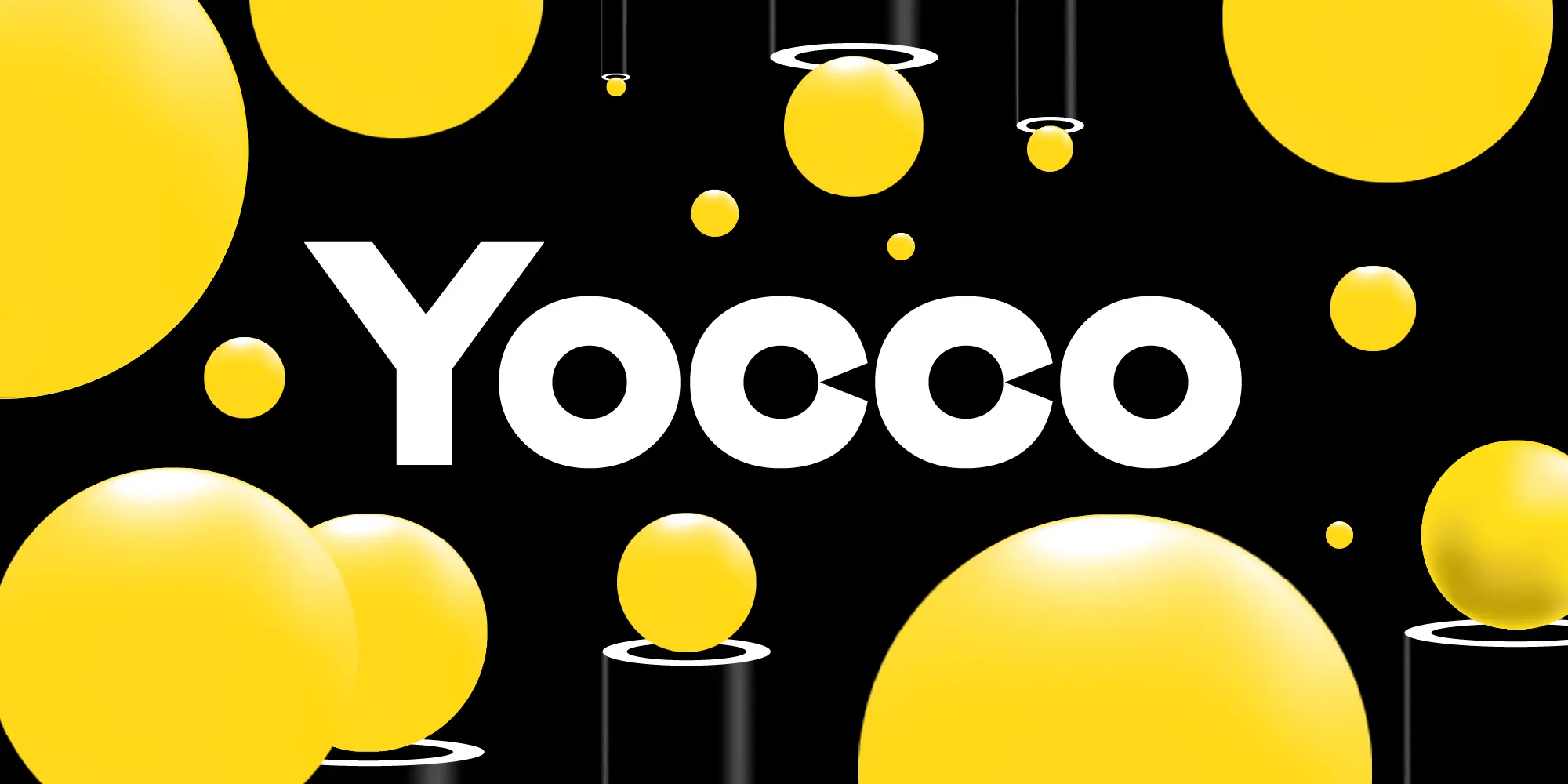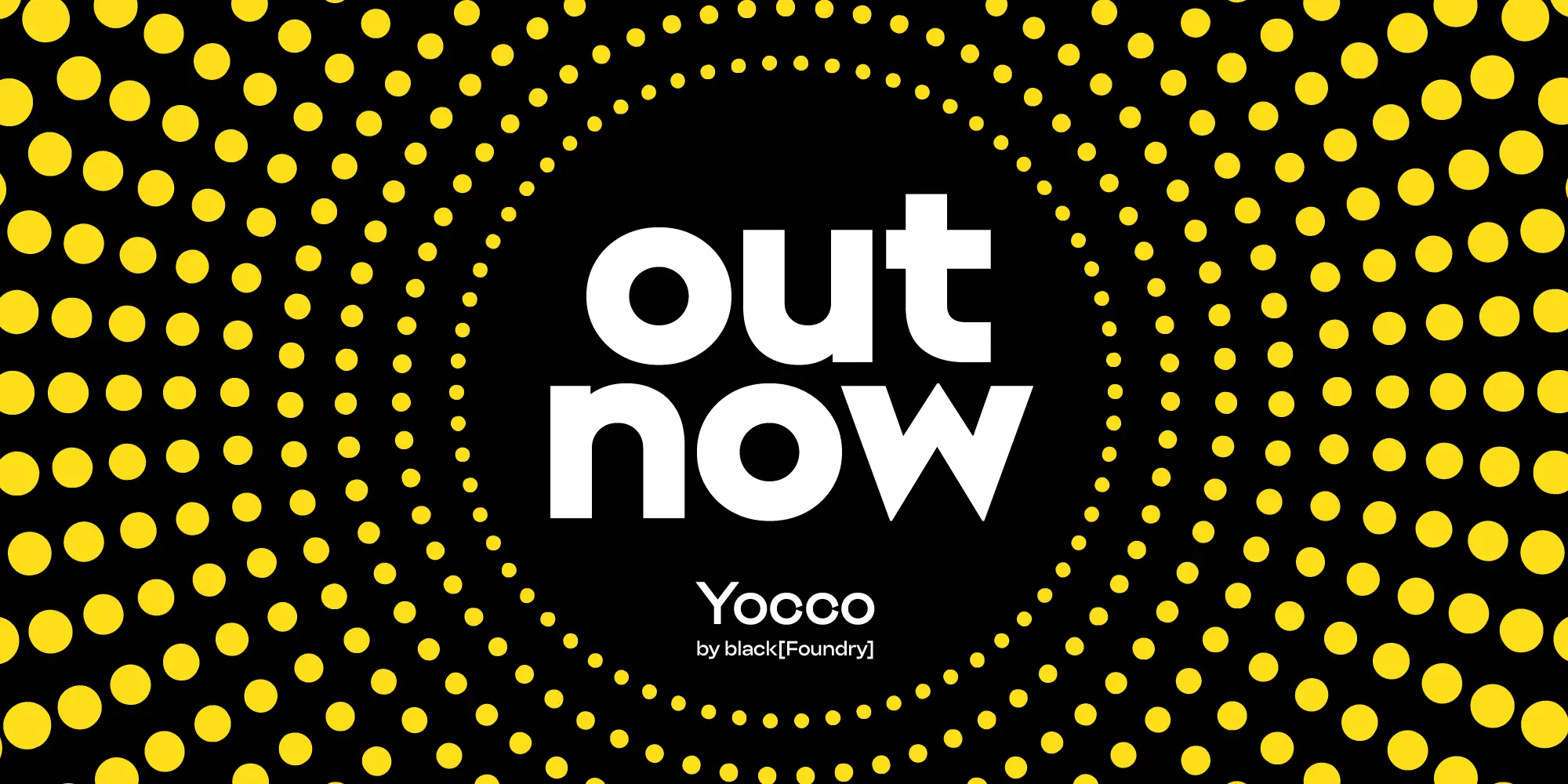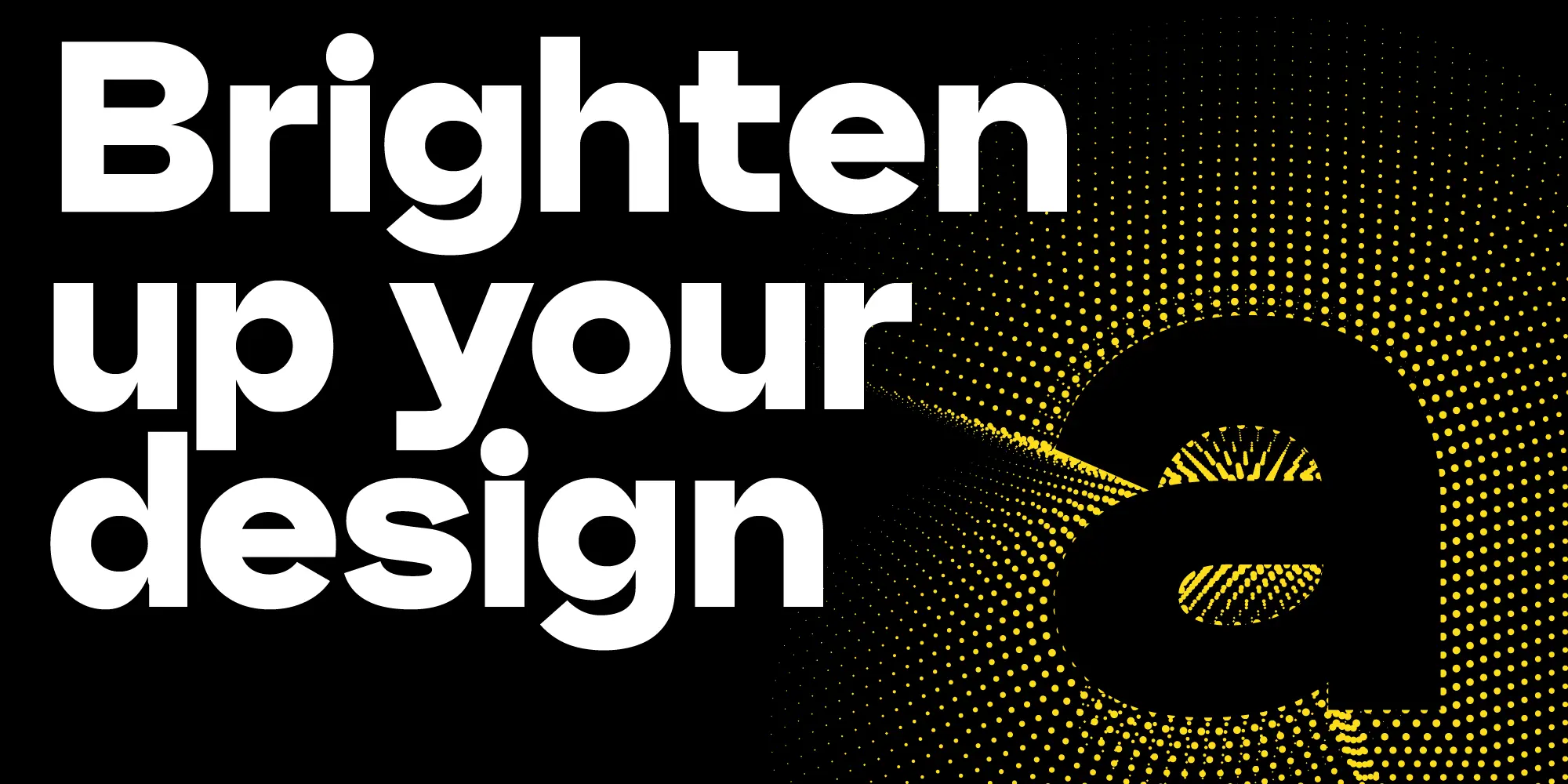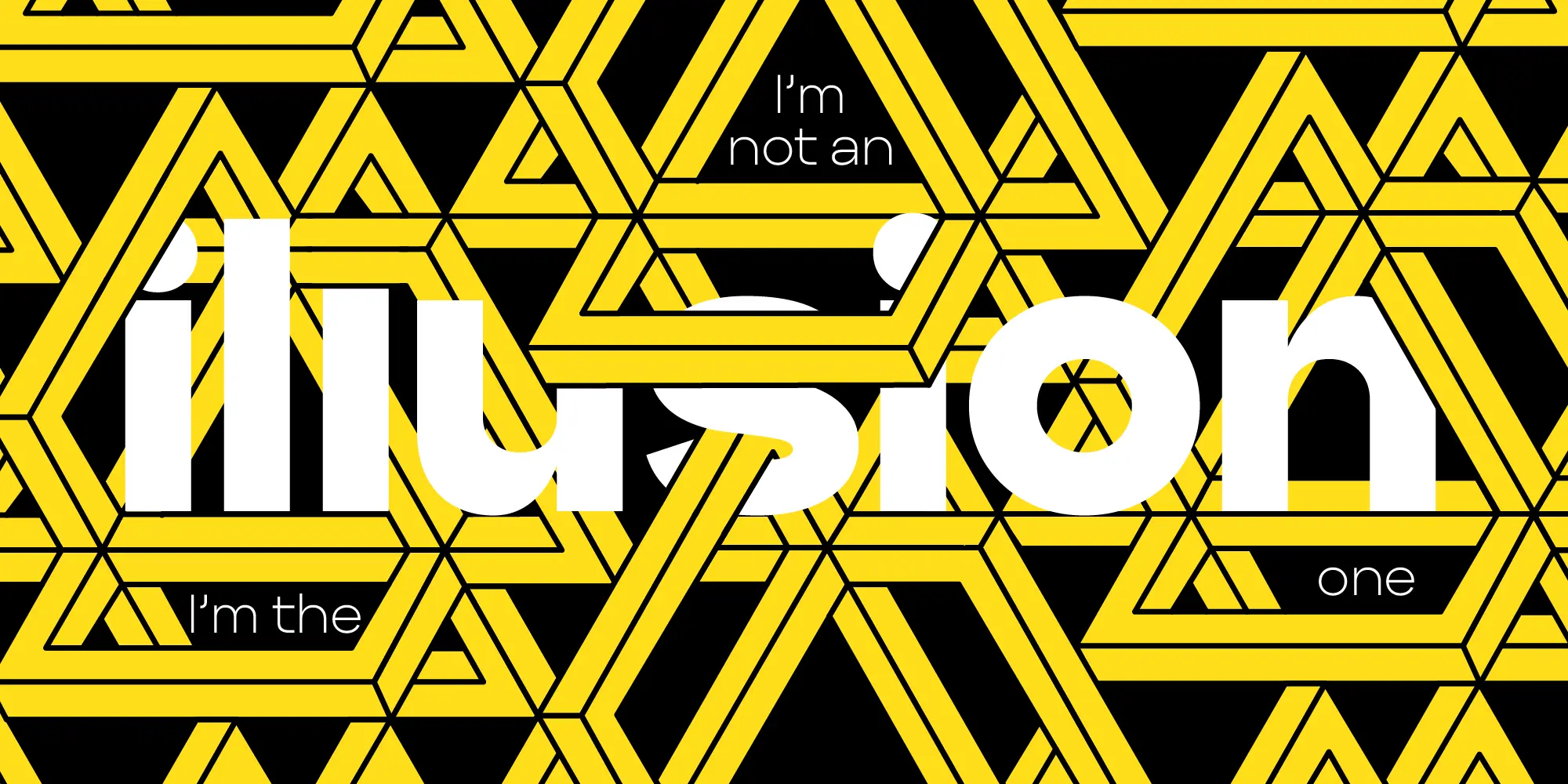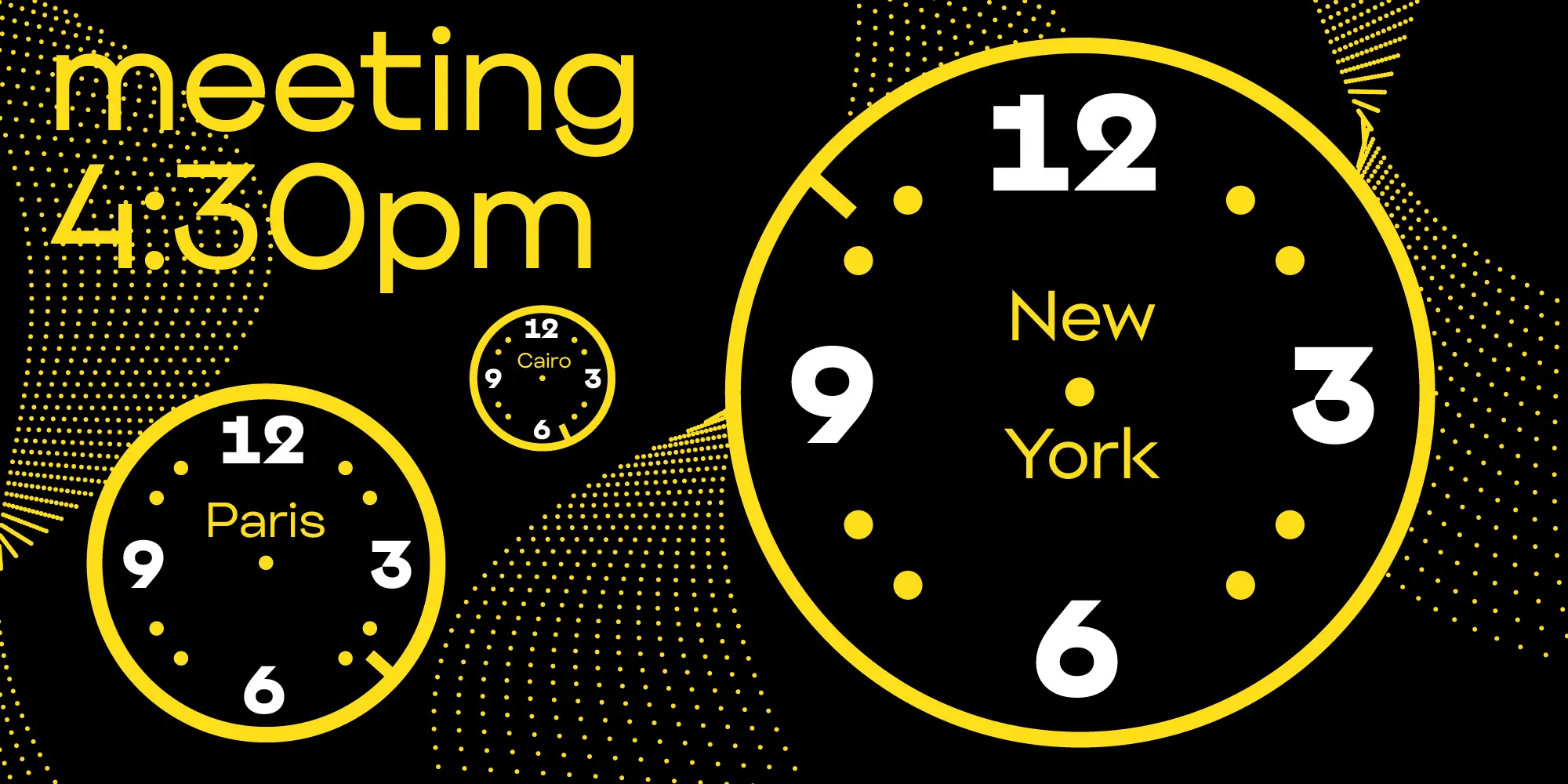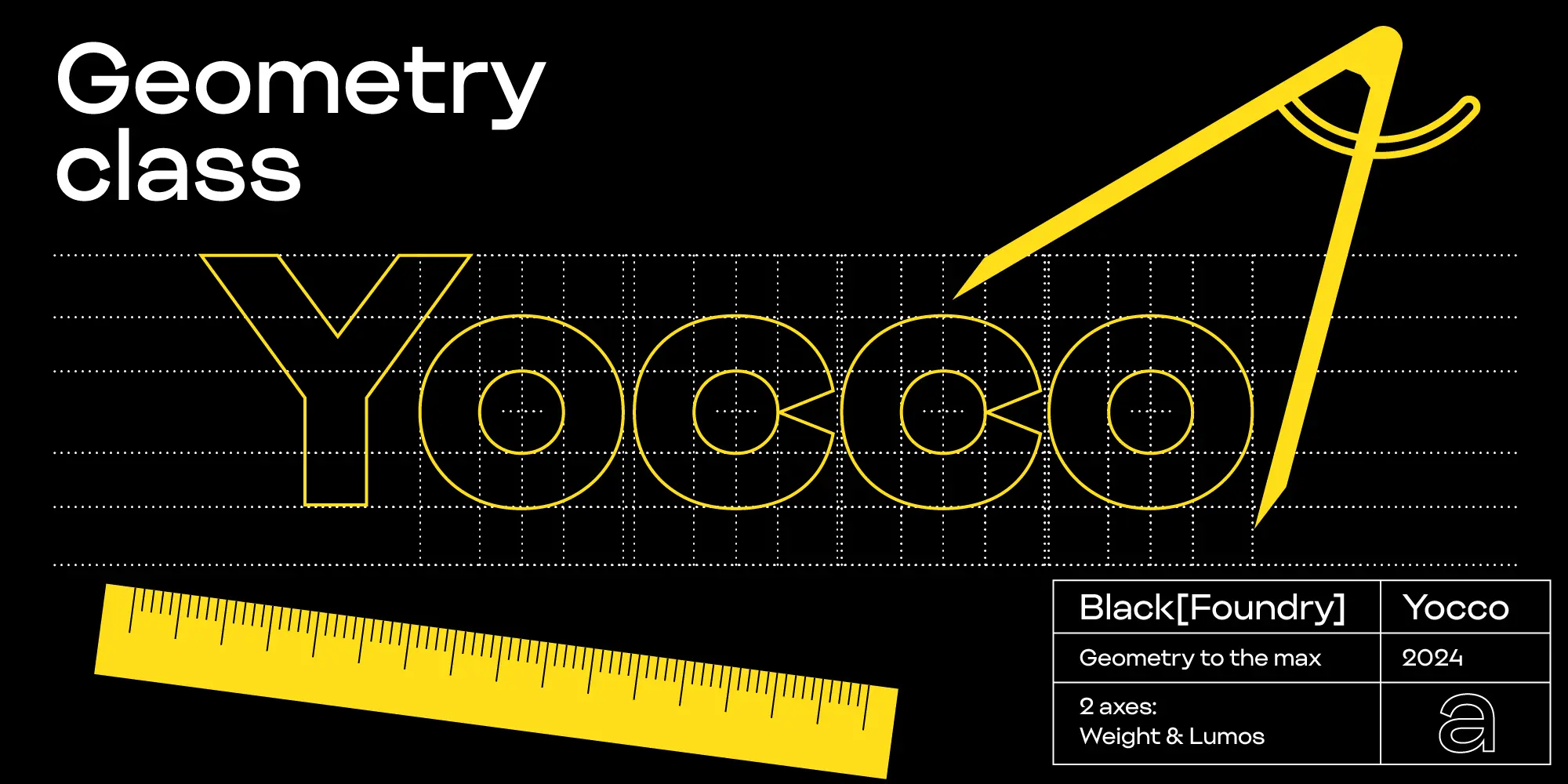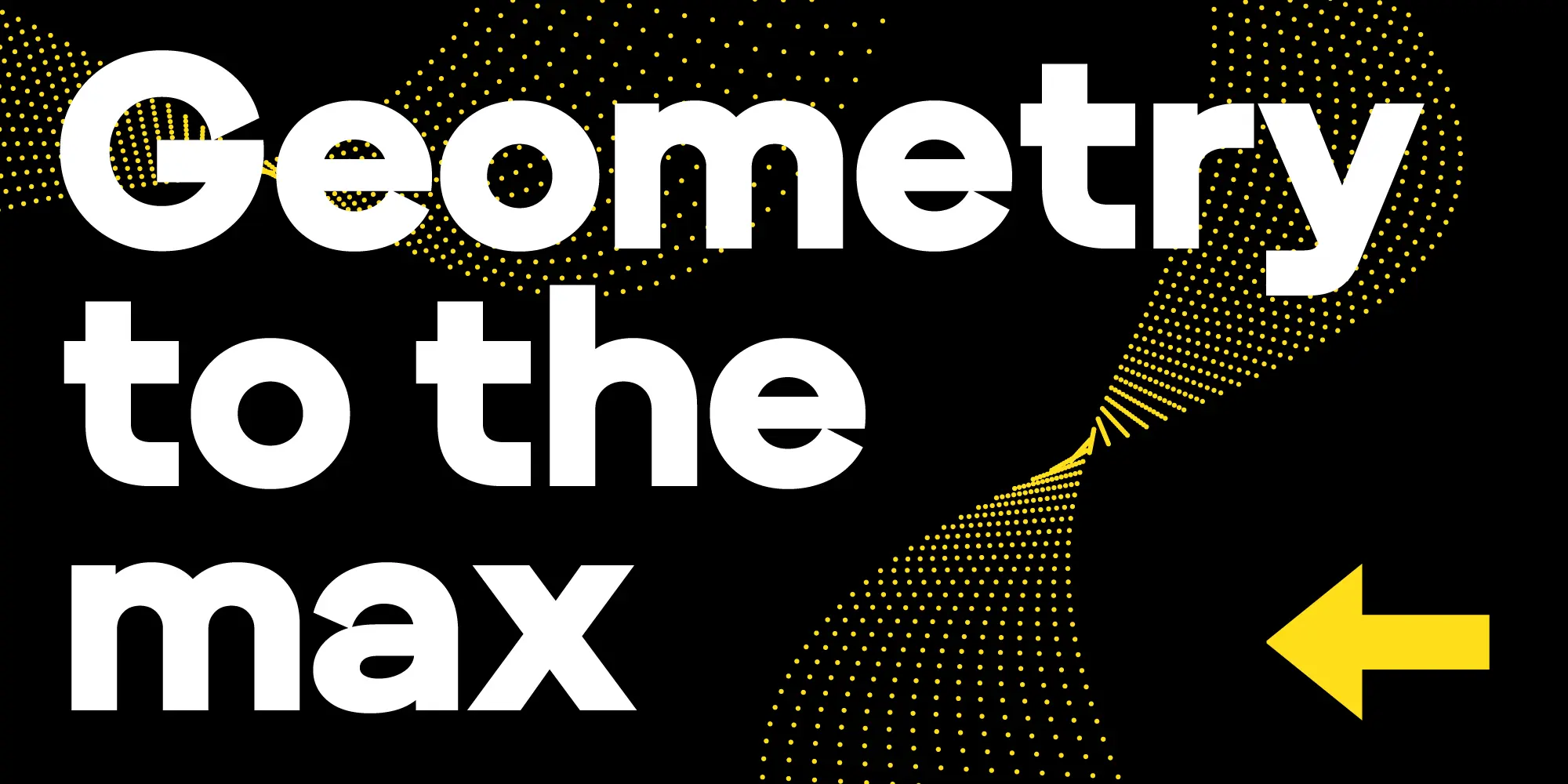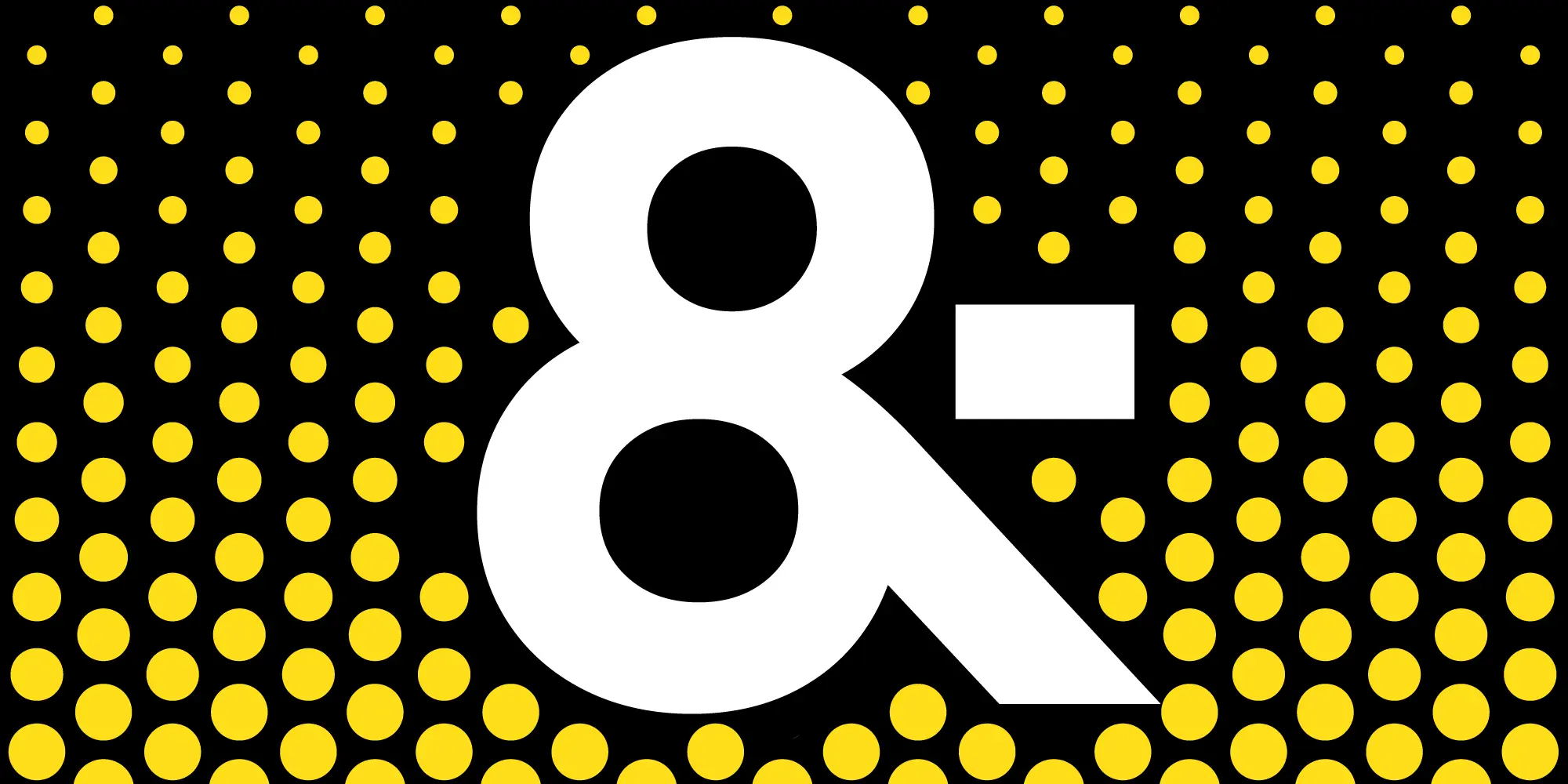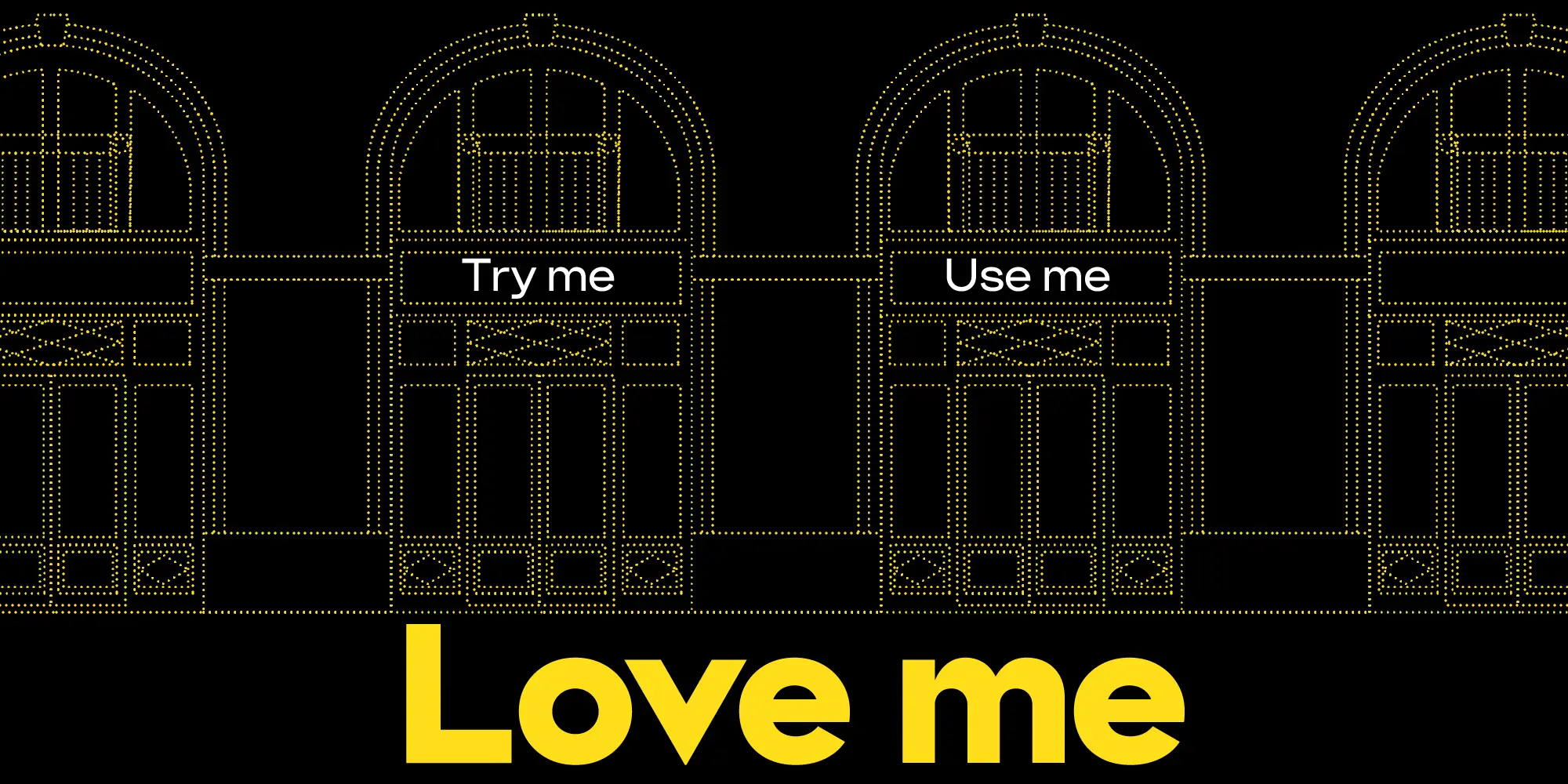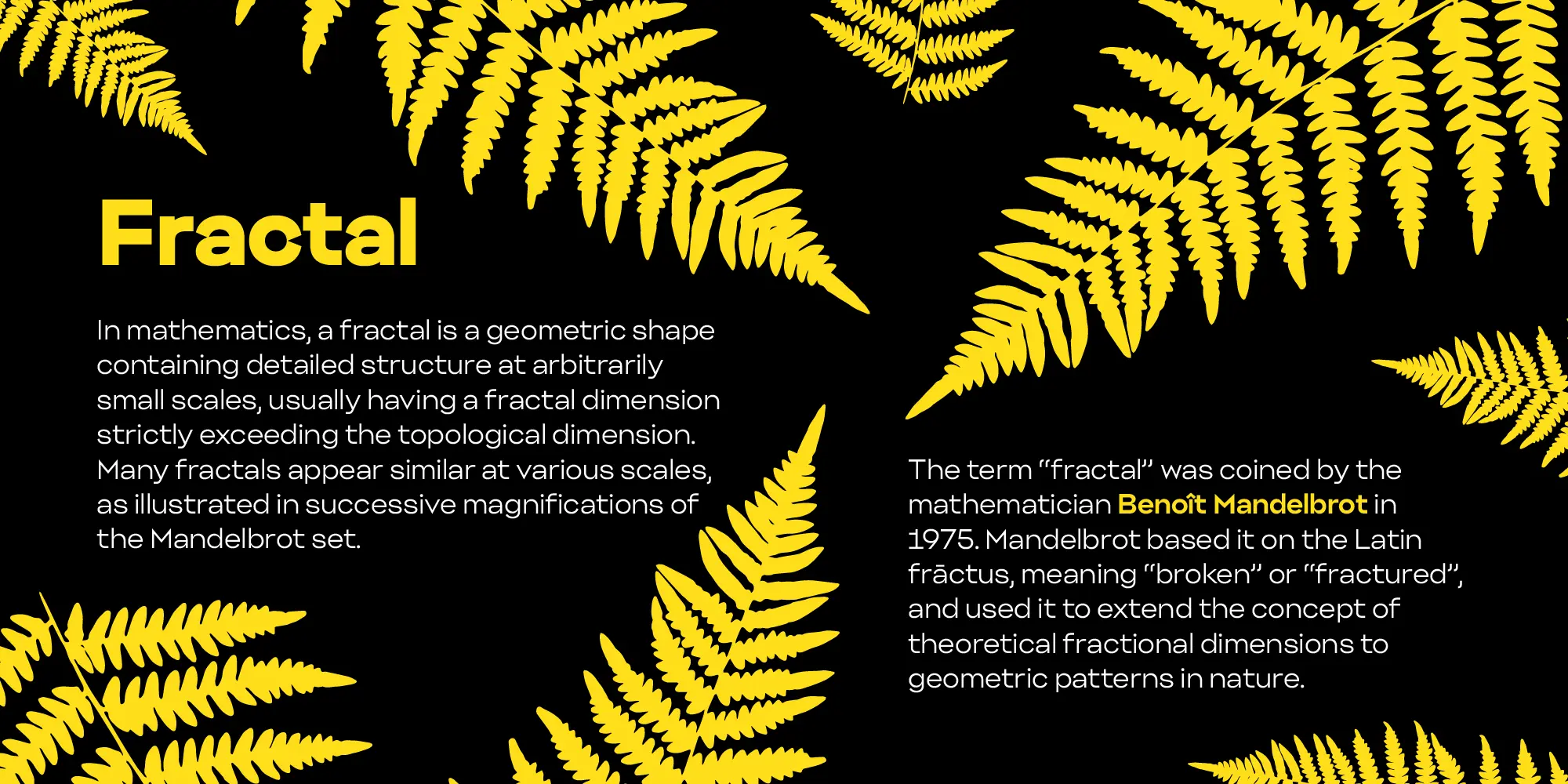
Yocco Fonts
Yocco takes the geometric sans serif to the max balancing form and readability. Design details such as closed terminals on letters like a, c, e, and s give it a distinctive look, while an alternate single-storey a enhances its geometric character. Minimal contrast means the overall rhythm is readable and sharp, adapting perfectly to both digital interfaces and print media. Available as a variable font and 10 static styles, designers can craft visually distinct and engaging experiences.
Designed by
Black Foundry Designers
Features
OpenType Features
- Common Ligatures
- Fractions
- Lining Numerals
- Old Style Numerals
- Ordinal Numerals
- Proportional Numerals
- Stylistic Sets
- Subscript
- Superscript
- Tabular Numerals